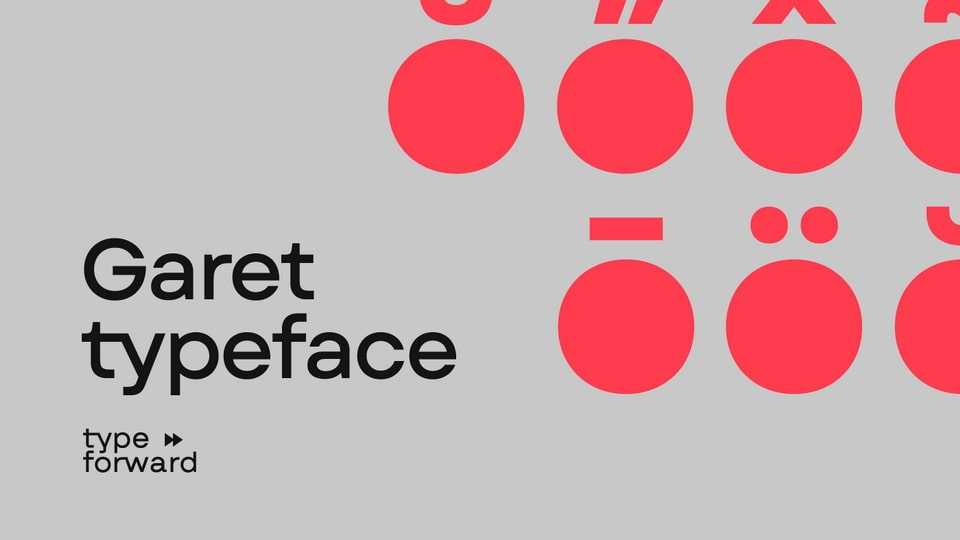
Download Garet font, a modern geometric sans serif typeface. Garet is characterised by high x-height, clean and soft letterforms with a smooth masculine tone.